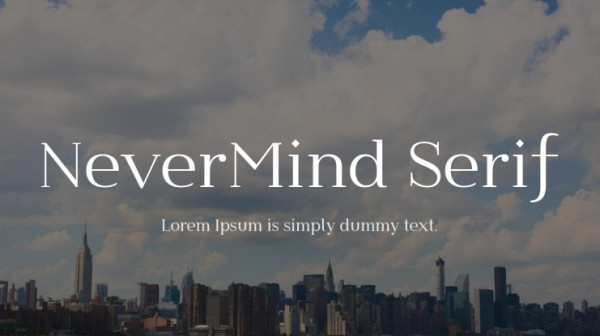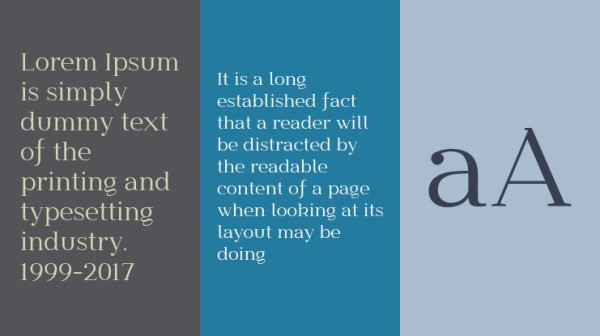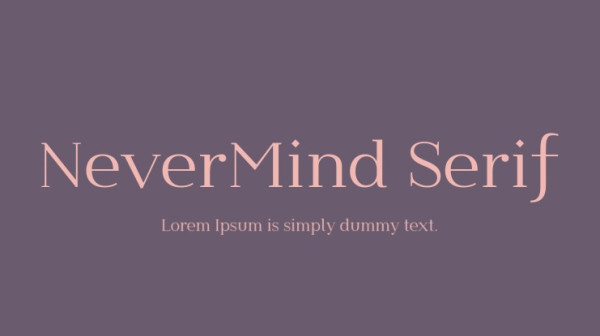
Nevermind Serif Font
Nevermind Serif Font by XMind Ltd is a free high-class serif font typeface. It features sharp serifs and high contrast letterforms that exude strength and grace. Modern and friendly, it can be used for all types of communication.
Nevermind Serif is a part of Nevermind font family that currently includes one basic typeface and more than ten different fonts in various styles, including round, handwritten, serif and so on.